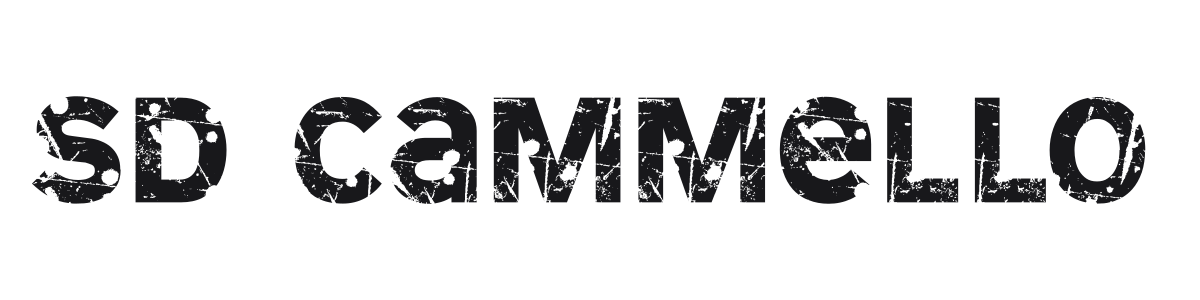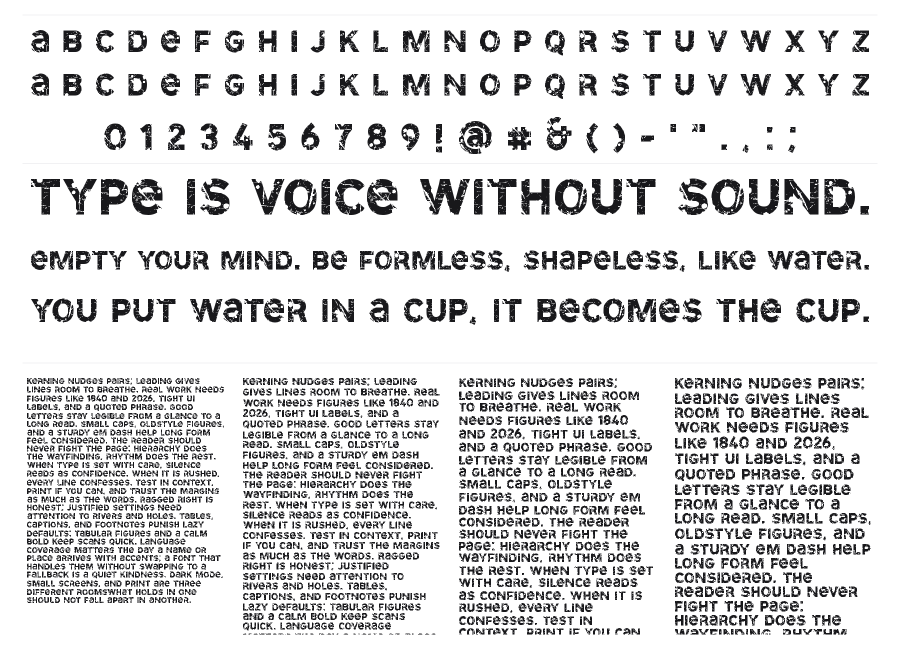
SD Cammello
SD Cammello is a heavy bold sans-serif buried under layers of grit, cracks, and erosion that make every character look like it was stamped on a crumbling wall. The underlying forms are wide and sturdy, but the distress texture is aggressive enough to dominate the design entirely. Best used large, where the roughness reads as intentional attitude rather than poor reproduction.